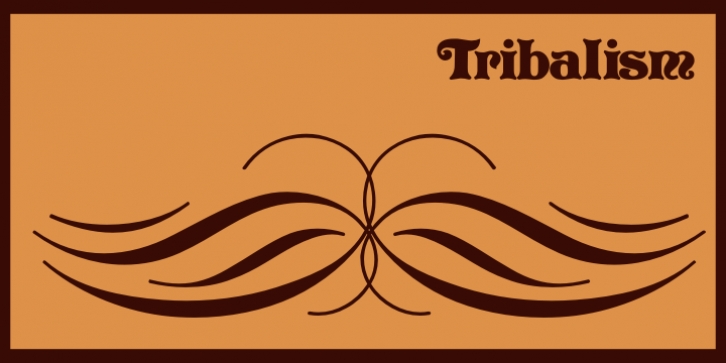
Tribalism downloadDesigner: Iza W,
Publisher: Intellecta Design
Tribalism is a dingbat/flourish font inspired by tattoos and more. Use these ornaments to decorate your type settings and or design work.